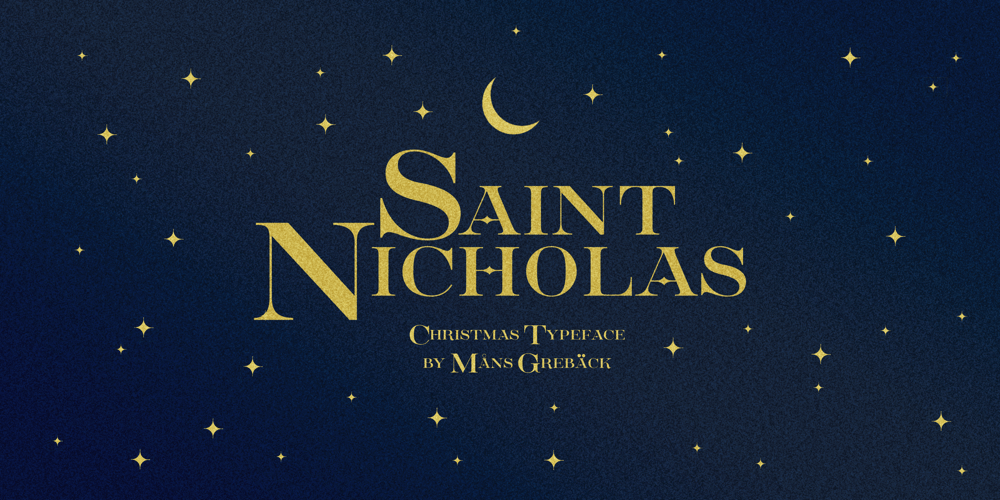
Saint Nicholas
Saint Nicholas font
Saint Nicholas Font Family was designed by Måns Grebäck and published by Mans Greback. Saint Nicholas contains 4 styles and family package options. Saint Nicholas is a decorative serif typeface.With classy letterforms, this elegant Christmas font has great contrast, and a classic appearance with snow and star decorations. Use * and ¤ to make star and snow symbols. Example: *Merry*Christmas*The Saint Nicholas typeface family consists of four professional styles:The Clean font, the decorative Deco style, plus the ornamented Snow and Star styles. The font is built with advanced OpenType functionality and has a guaranteed top-notch quality, containing stylistic and contextual alternates, ligatures and more features; all to give you full control and customizability. It has extensive lingual support, covering all Latin-based languages, from Northern Europe to South Africa, from America to South-East Asia. It contains all characters and symbols you’ll ever need, including all punctuation and numbers.